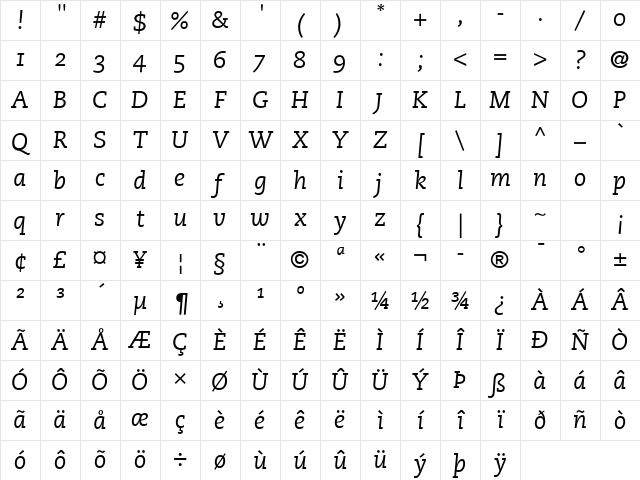
Caecilia RomanOsF is a composed and adaptable typeface that performs quietly and consistently across a wide range of design contexts. The slanted form adds forward momentum and visual energy.
Pro Tip: Use Caecilia RomanOsF for emphasis, pull quotes, and subheadings where its slanted energy can add rhythm to the layout.